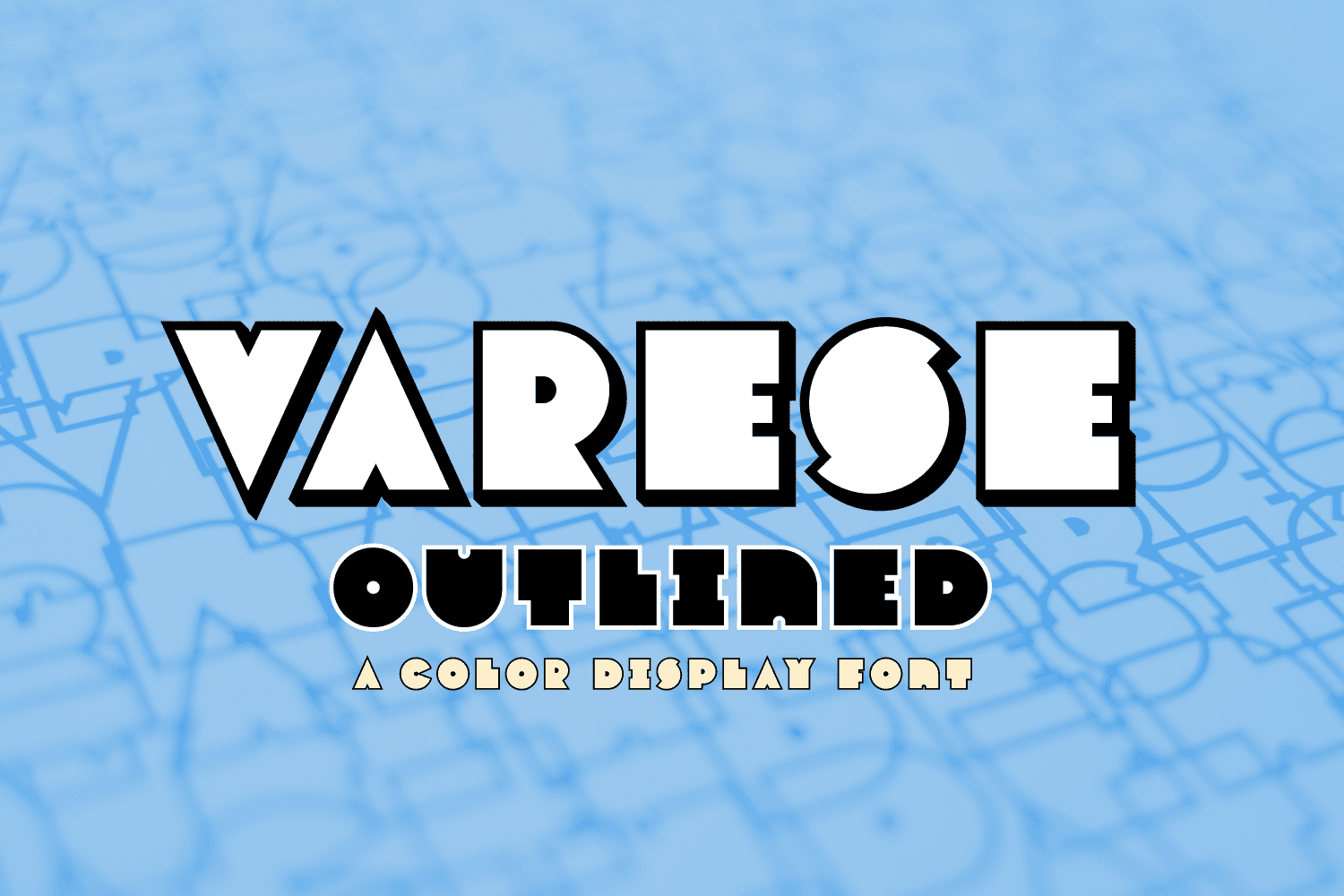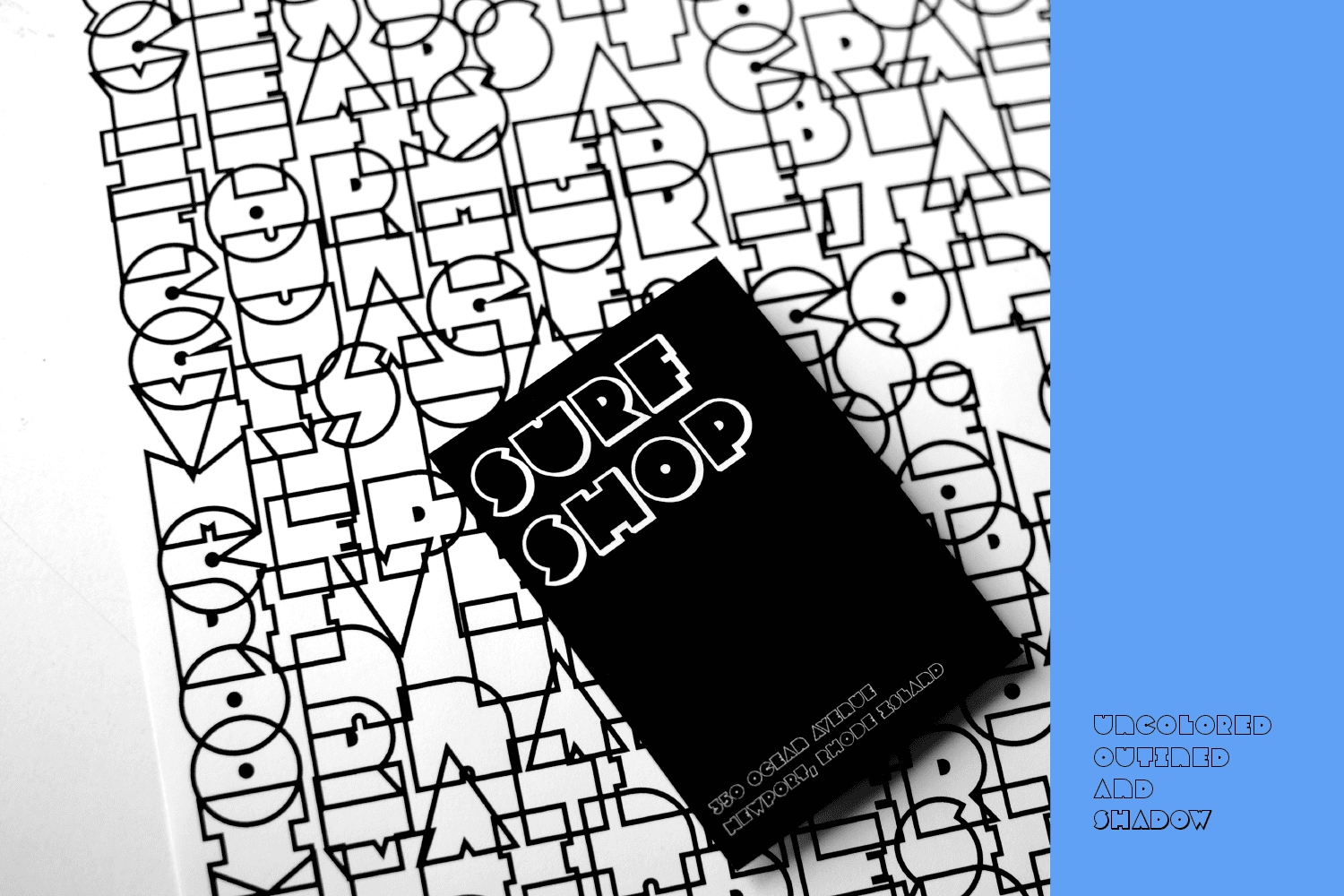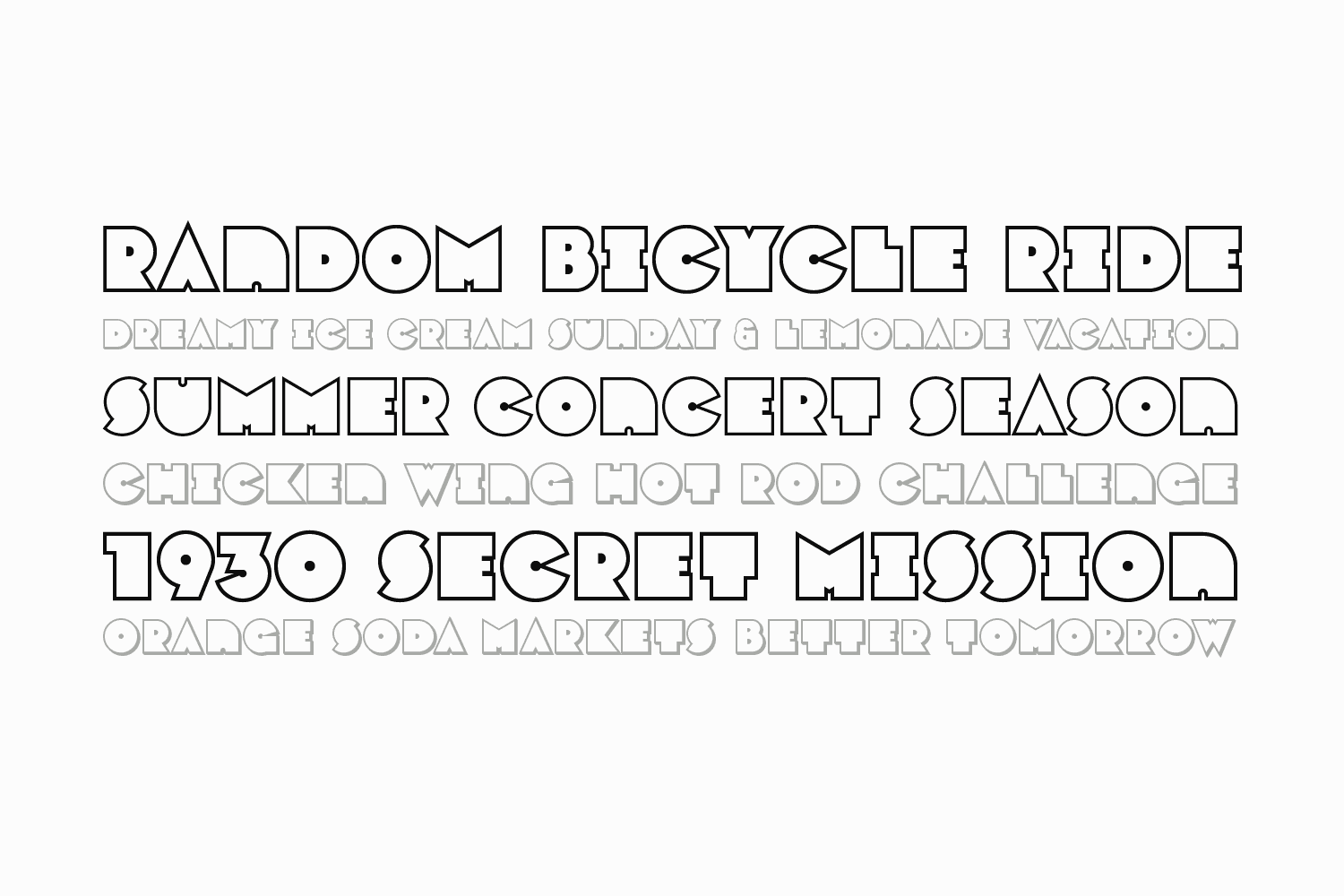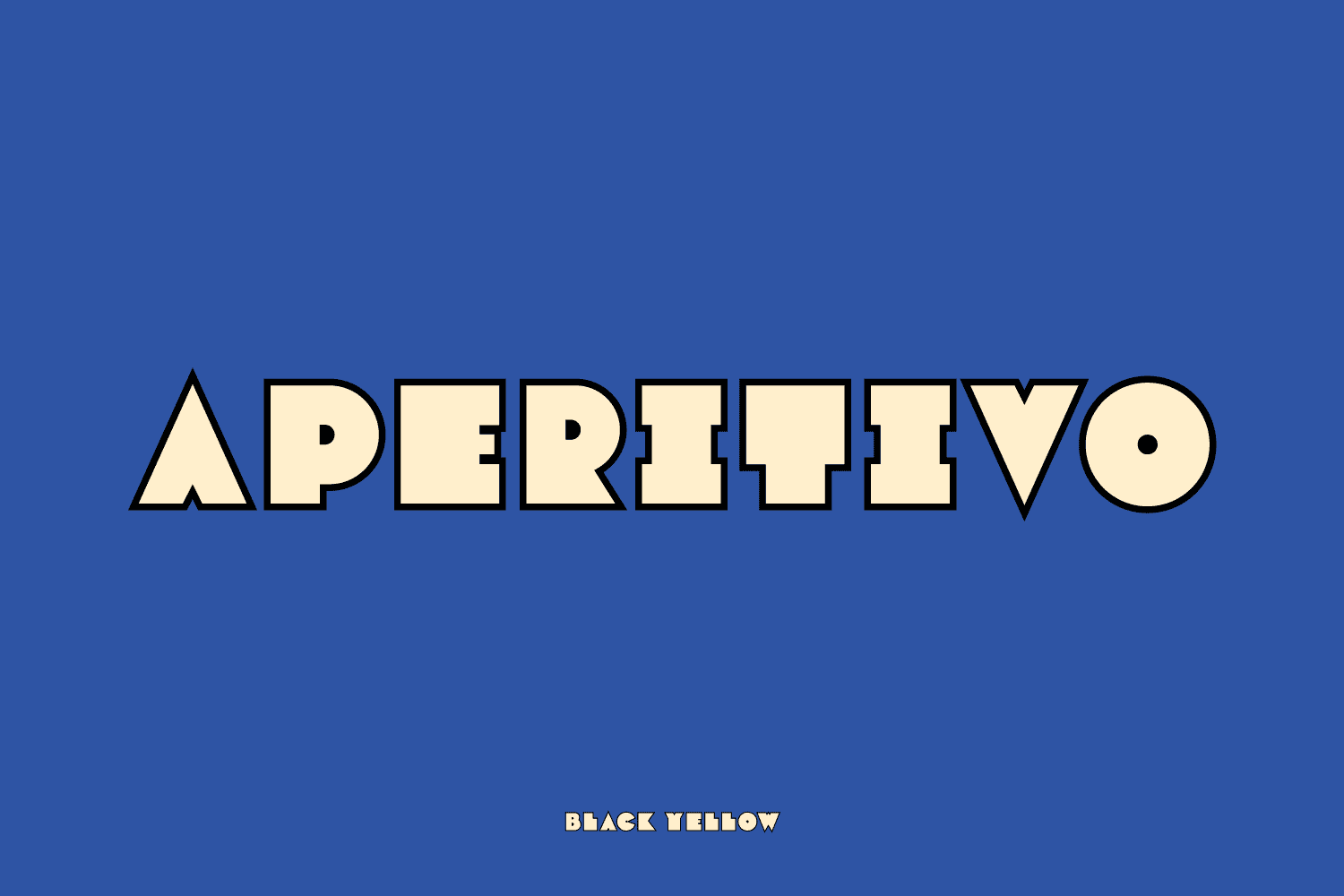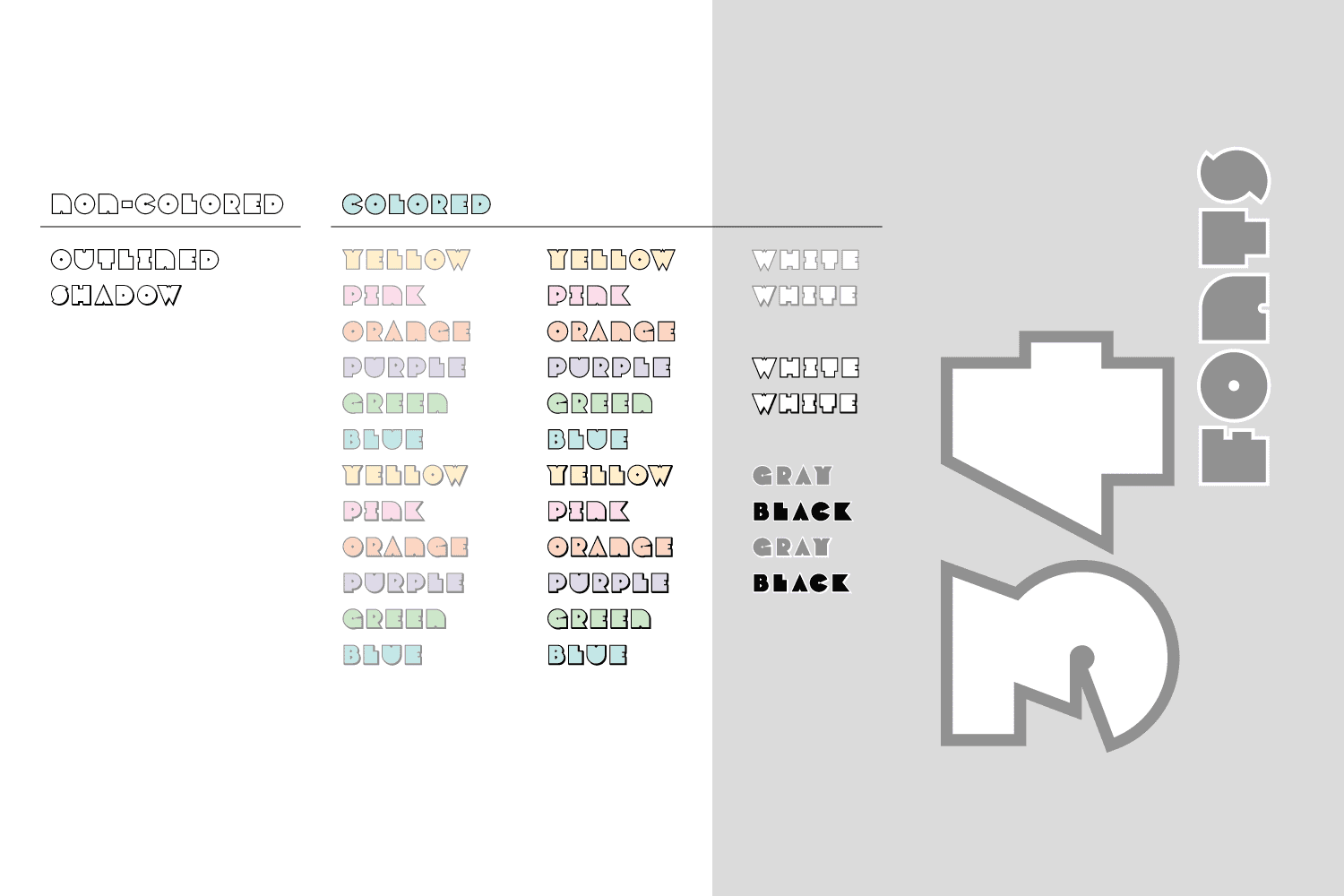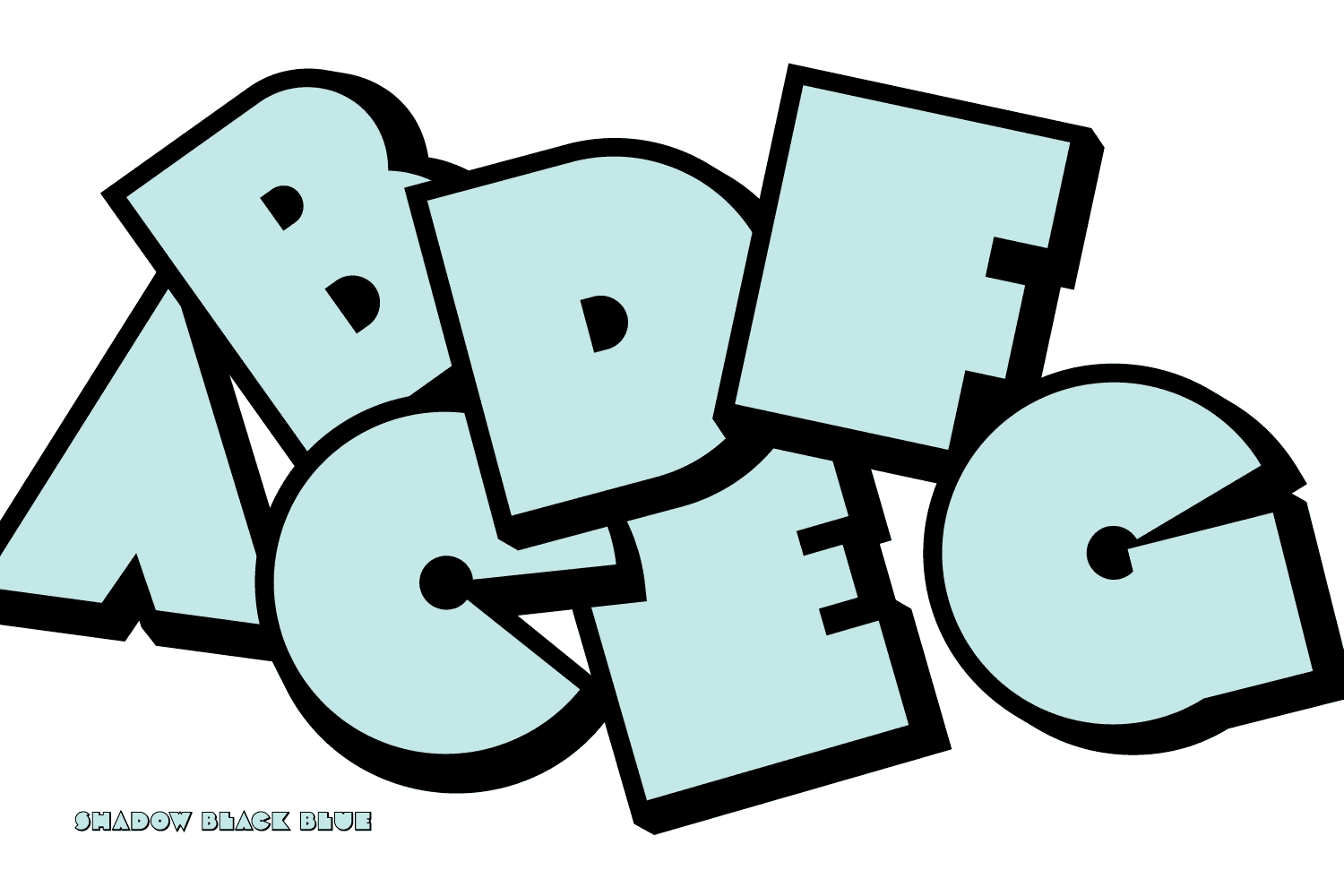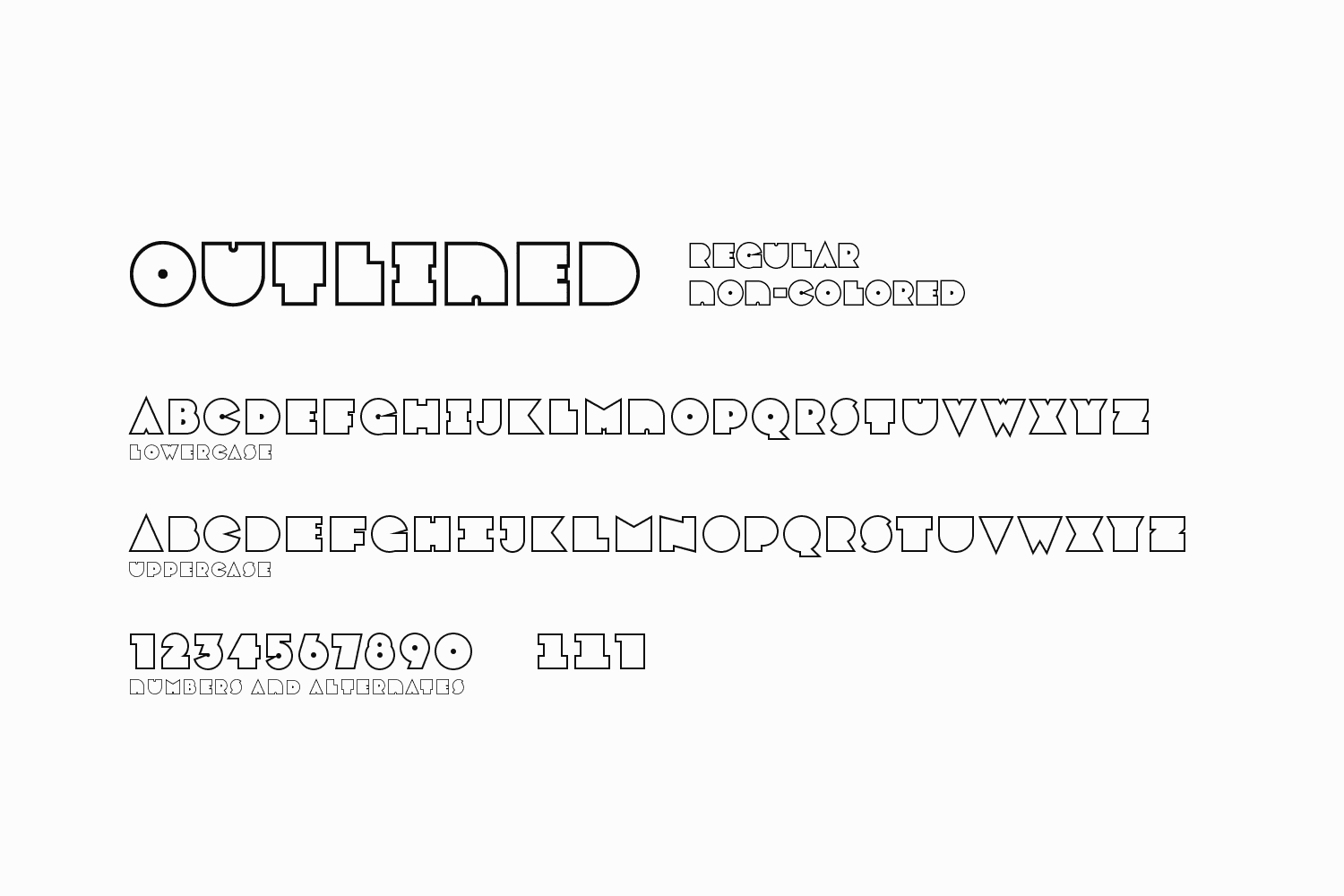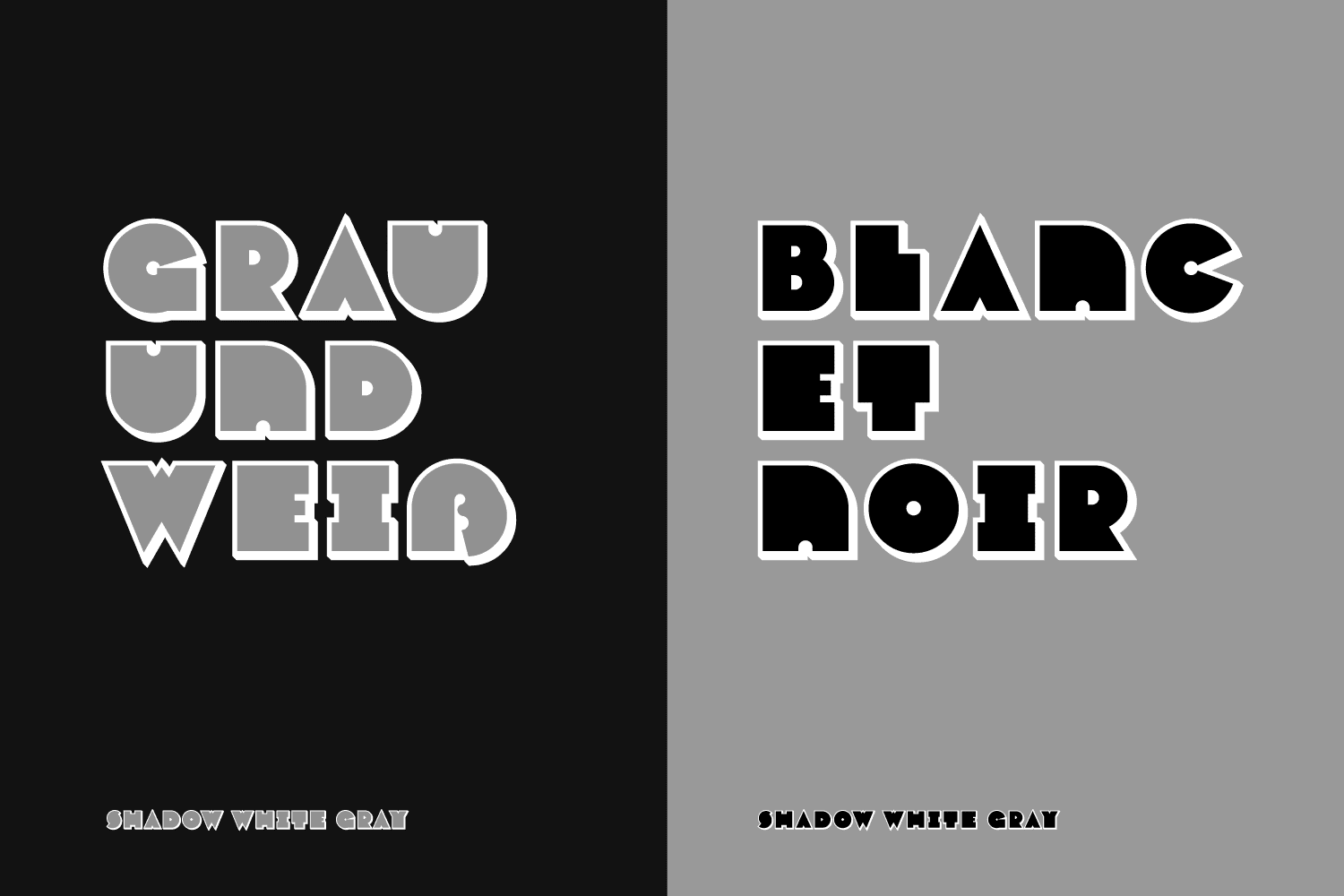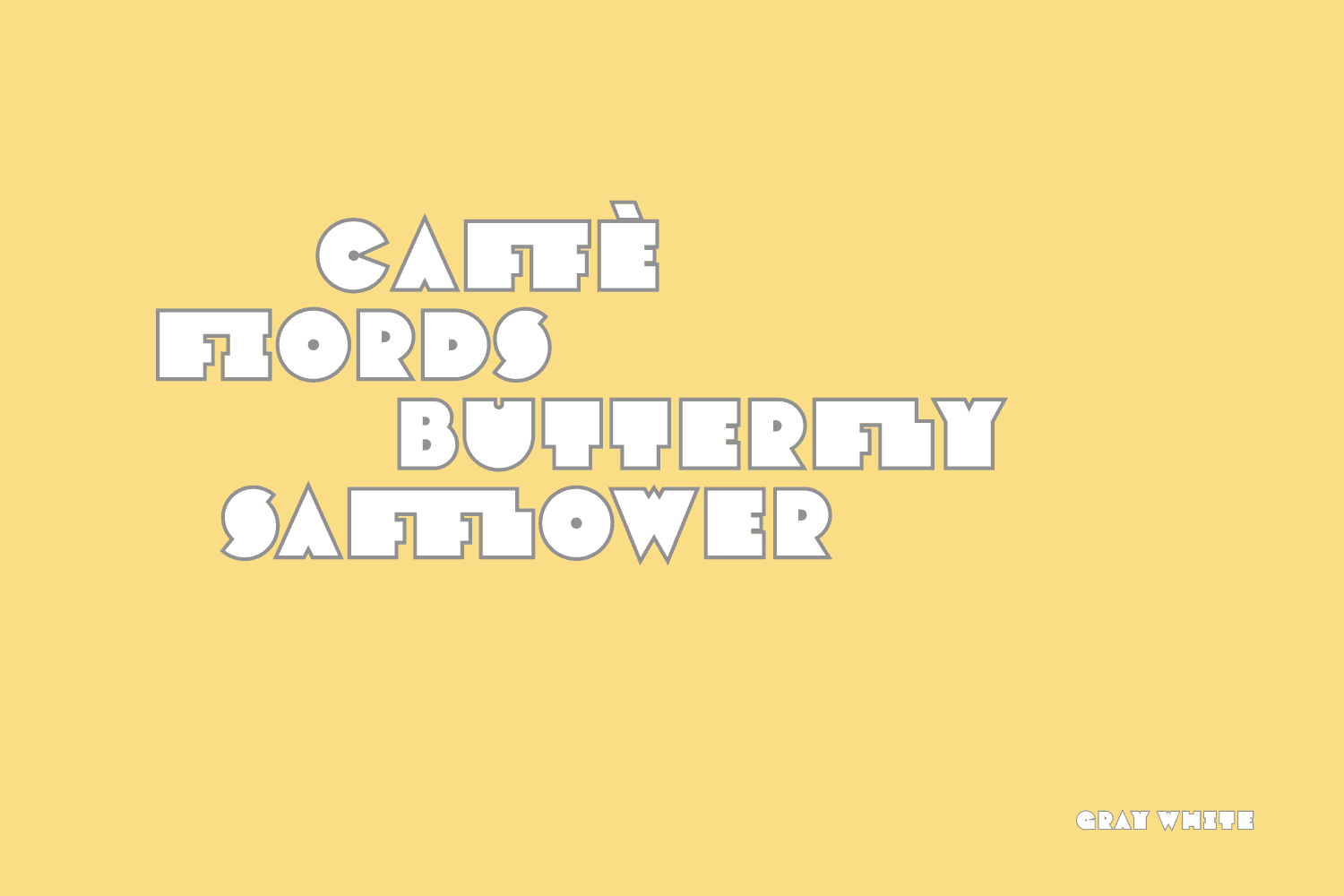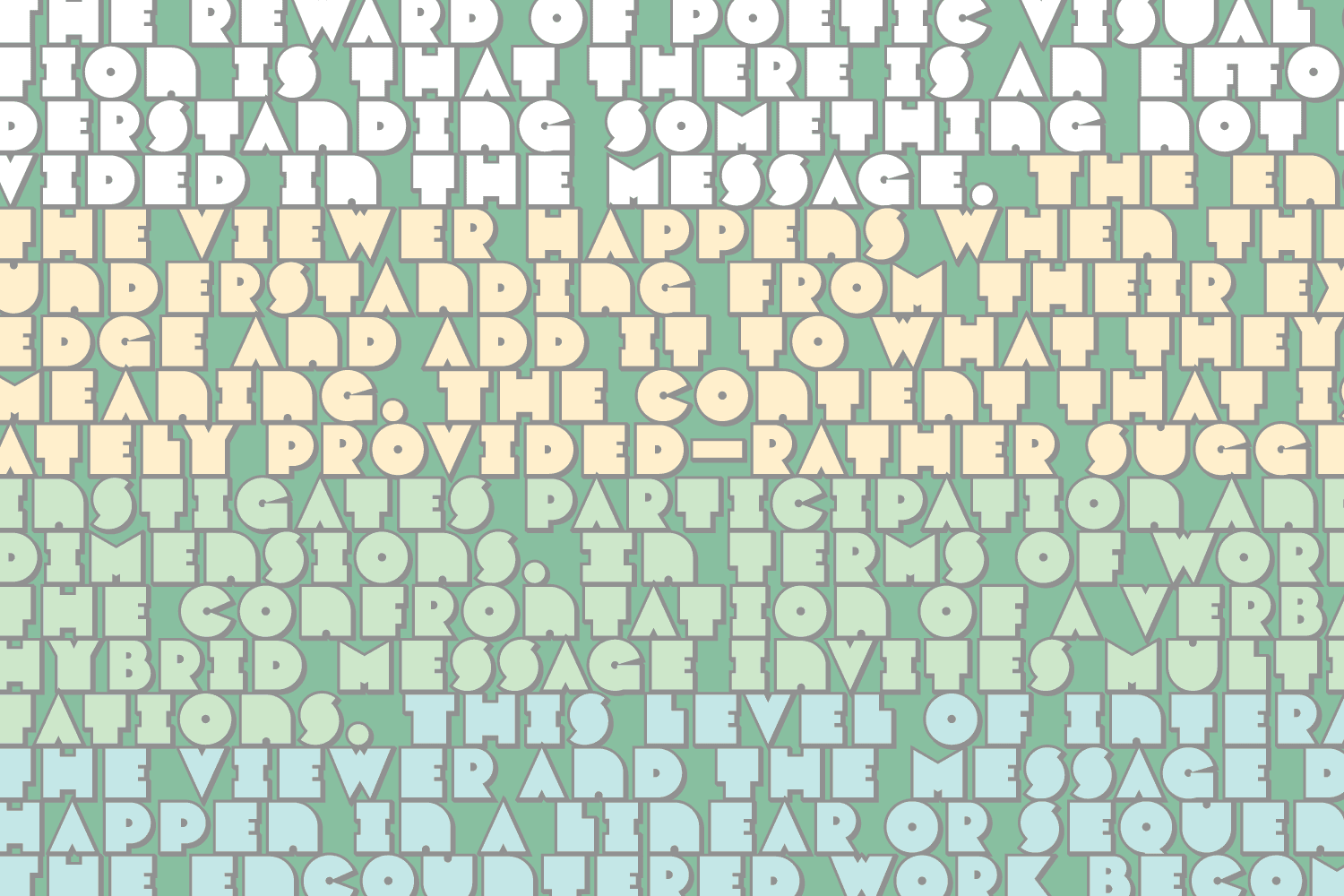
Varese Outlined Family (34 fonts)
This geometric and modular typeface was inspired by Italian posters of the 1920s and 1930s. Its design playfully explores the boundaries between unity and variety. The blocky characteristics lend it well to tightly composed text either horizontally or vertically.
The lowercase is similar in form to the uppercase, yet many of the lowercase letters have interior spaces (counterforms). It comes with standard ligatures; ff, fi, fl, ffl and three alternate glyphs for number 1
Those who do not want a color font should purchase the files simply named “Regular” and “Outlined”. These will not have any color words in the names.? Varese Outlined has two siblings; Varese and Varese Soft. The designer suggests pairing Varese Outlined with his ornamental fonts FormPattern or FormPattern Color Two, Three, or Six.